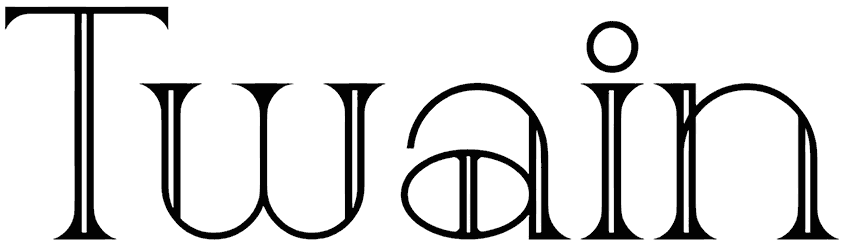
Twain Font
For a flyer with a tribal vibe or any other design, you could use an art deco font to distinctly primp them. Twain, with its native mood, has dual stripes, letters, and specific patterns that kinda look like eyes. Although Twain doesn’t include numbers and punctuation, you can add them to your innovative projects, namely logos, movie ads, or similar, and make a venerable design.